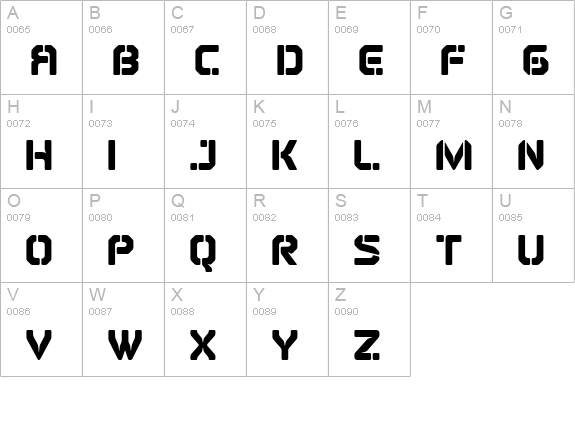
Airbrake Rounded Font Details
Airbrake Rounded font is a modern and clean typeface that exudes a sense of sophistication and elegance. Its rounded edges give it a friendly and approachable look, making it perfect for a wide range of design projects. Whether you're creating branding materials, websites, or print designs, Airbrake Rounded font is sure to make a statement. The best part? Airbrake Rounded font is available for free download at FontsMarket.com. This means that you can easily access this versatile font without breaking the bank. With its sleek design and easy readability, Airbrake Rounded font is a must-have addition to any designer's toolkit. Download it today and elevate your designs with this stylish and versatile typeface.